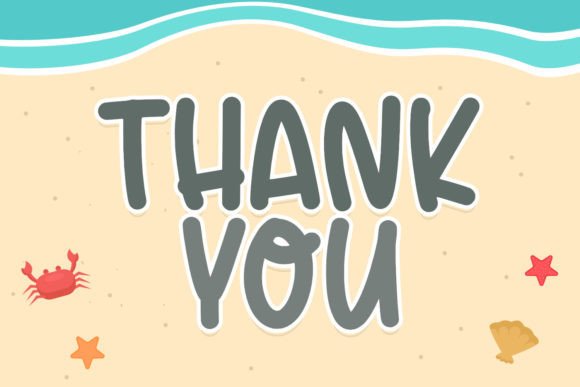
Introduction to Loving Beach Font Font
Fonts play a crucial role in design, and the Loving Beach Font font is a typeface that brings both character and versatility to any project. Whether you’re working on a branding project, a website, or a print design, the Loving Beach Font font offers a unique style that can elevate your work.
Loving Beach is a cool and fresh handwritten sans serif font.
With its cheerful vibe, this typeface is suitable for all your summertime designs .
Key Features of Loving Beach Font Font
Why Choose Loving Beach Font Font?
The Loving Beach Font font is more than just a typeface – it’s a design tool that helps you communicate your message with style and clarity. Its unique character set and versatile design make it suitable for a wide range of applications, from elegant invitations to bold headlines.
With its carefully crafted letterforms and balanced proportions, the Loving Beach Font font ensures readability and visual appeal across all mediums.
What makes Loving Beach Font font special?
The Loving Beach Font font stands out with its unique design, exceptional readability, and versatility across various design applications.